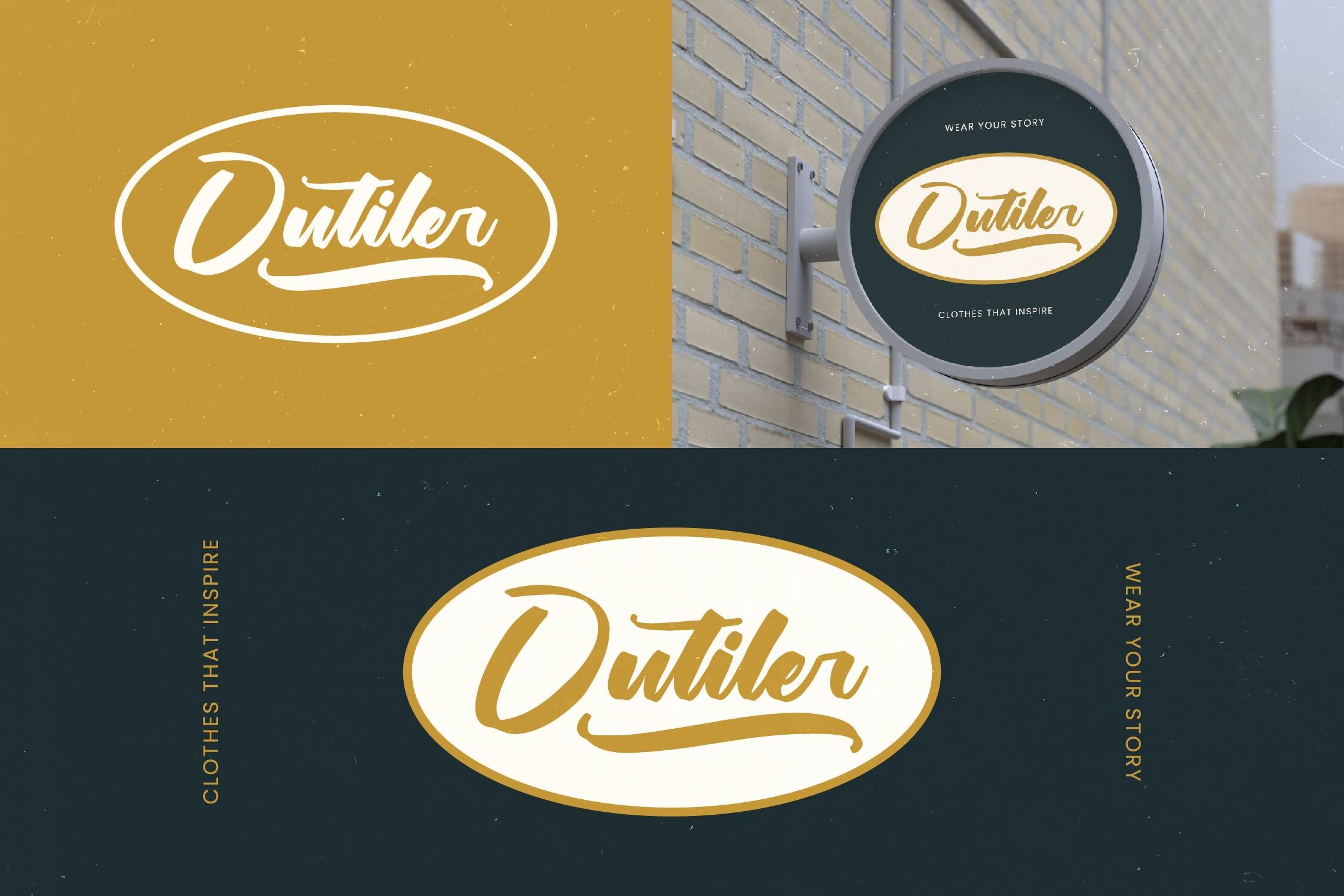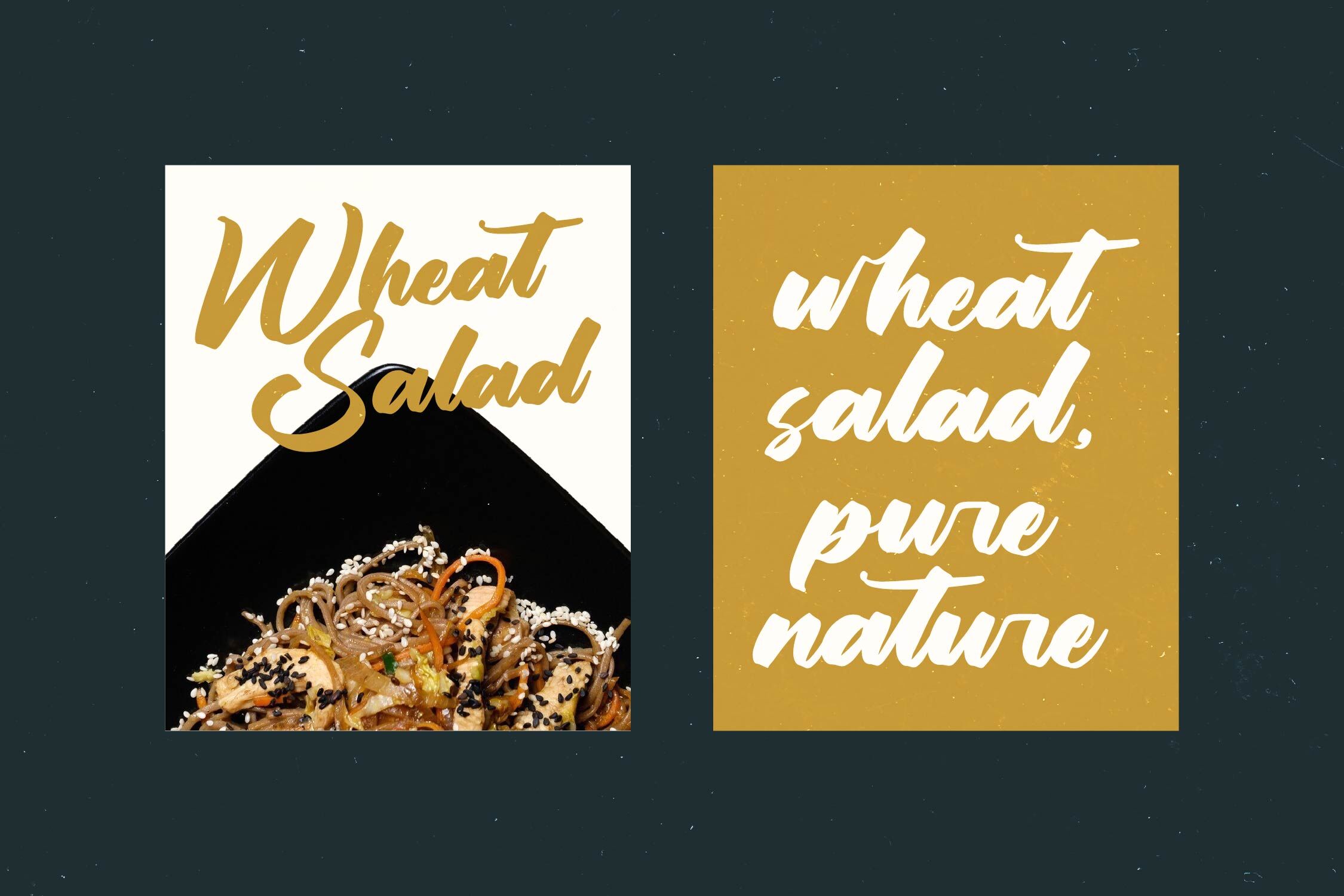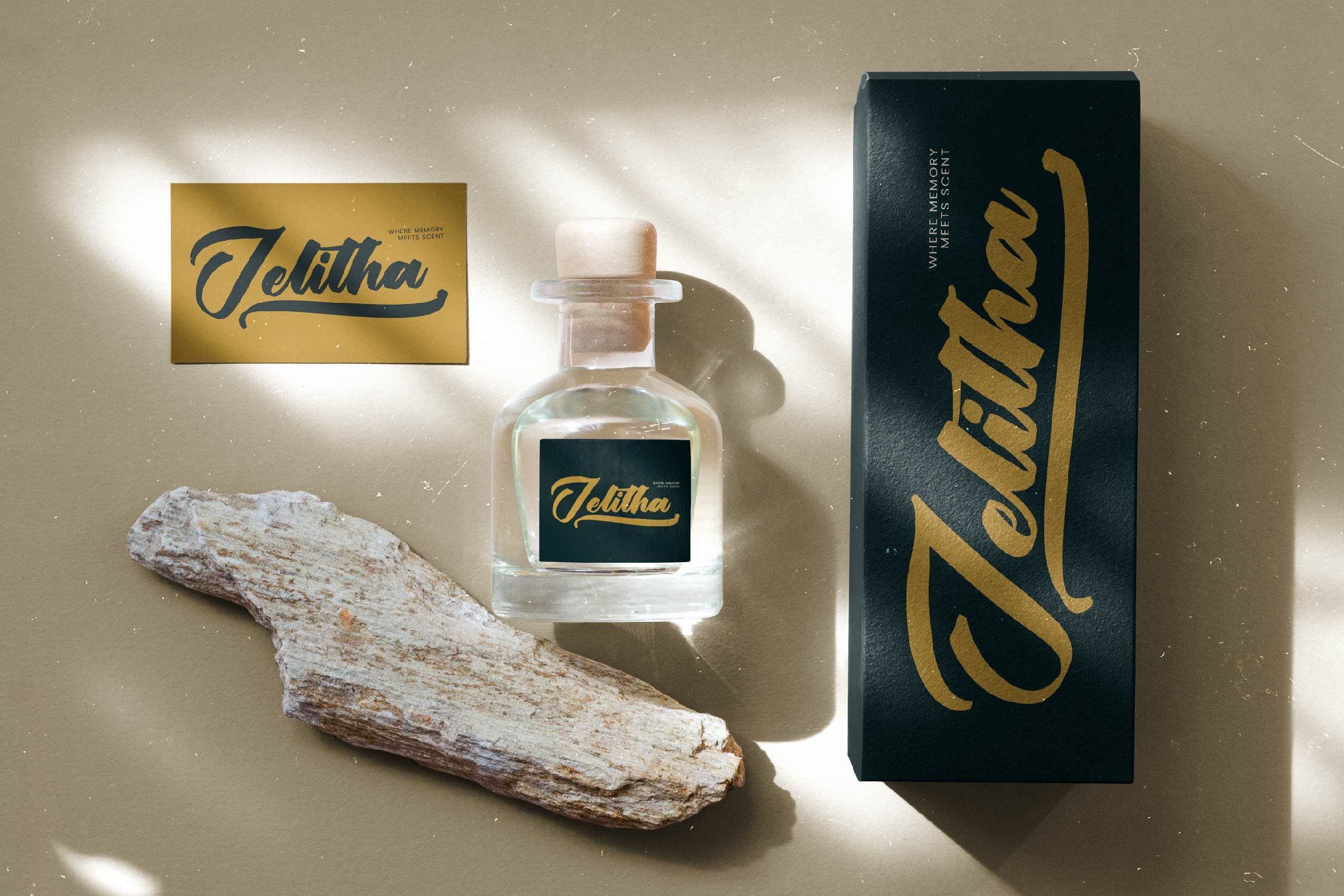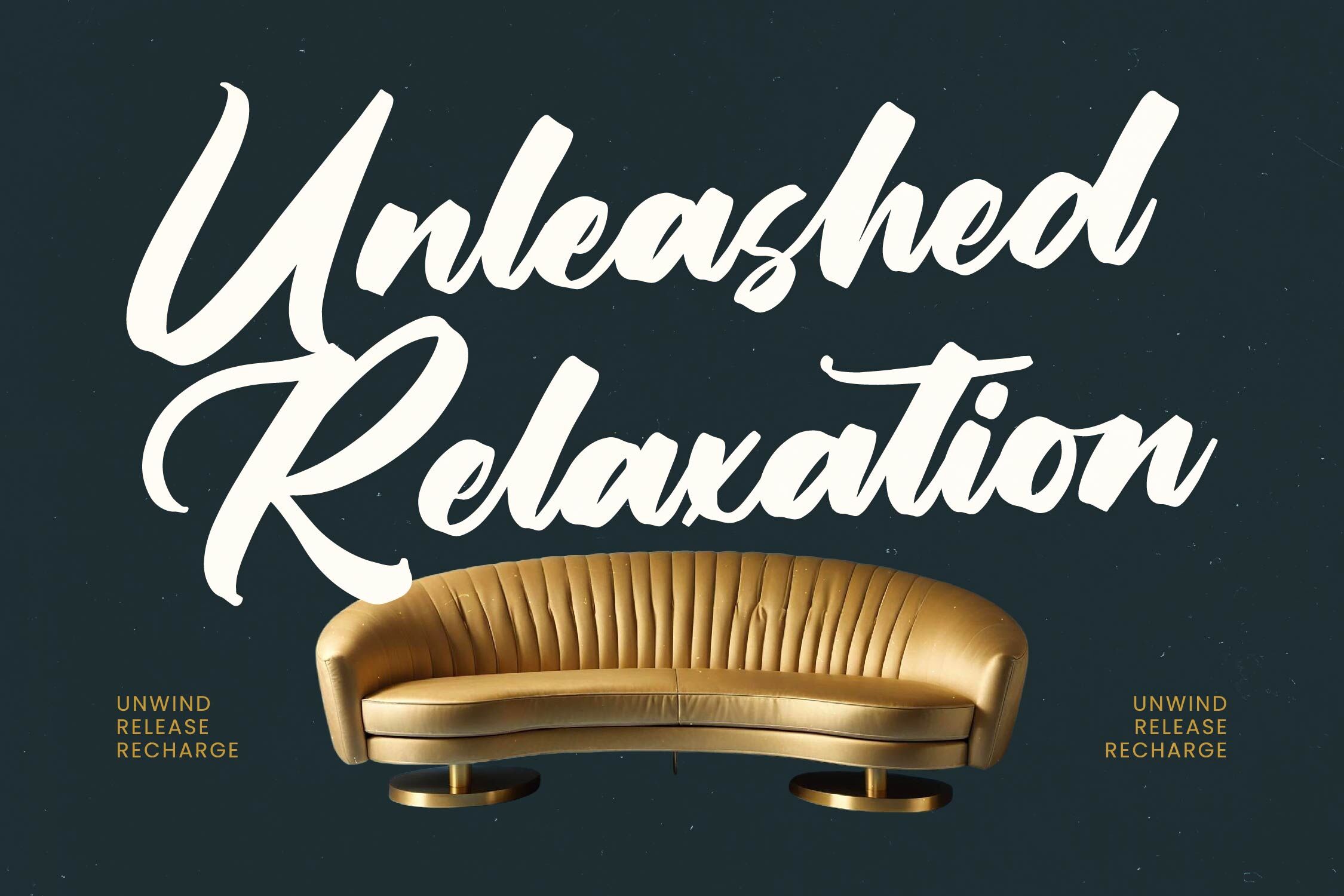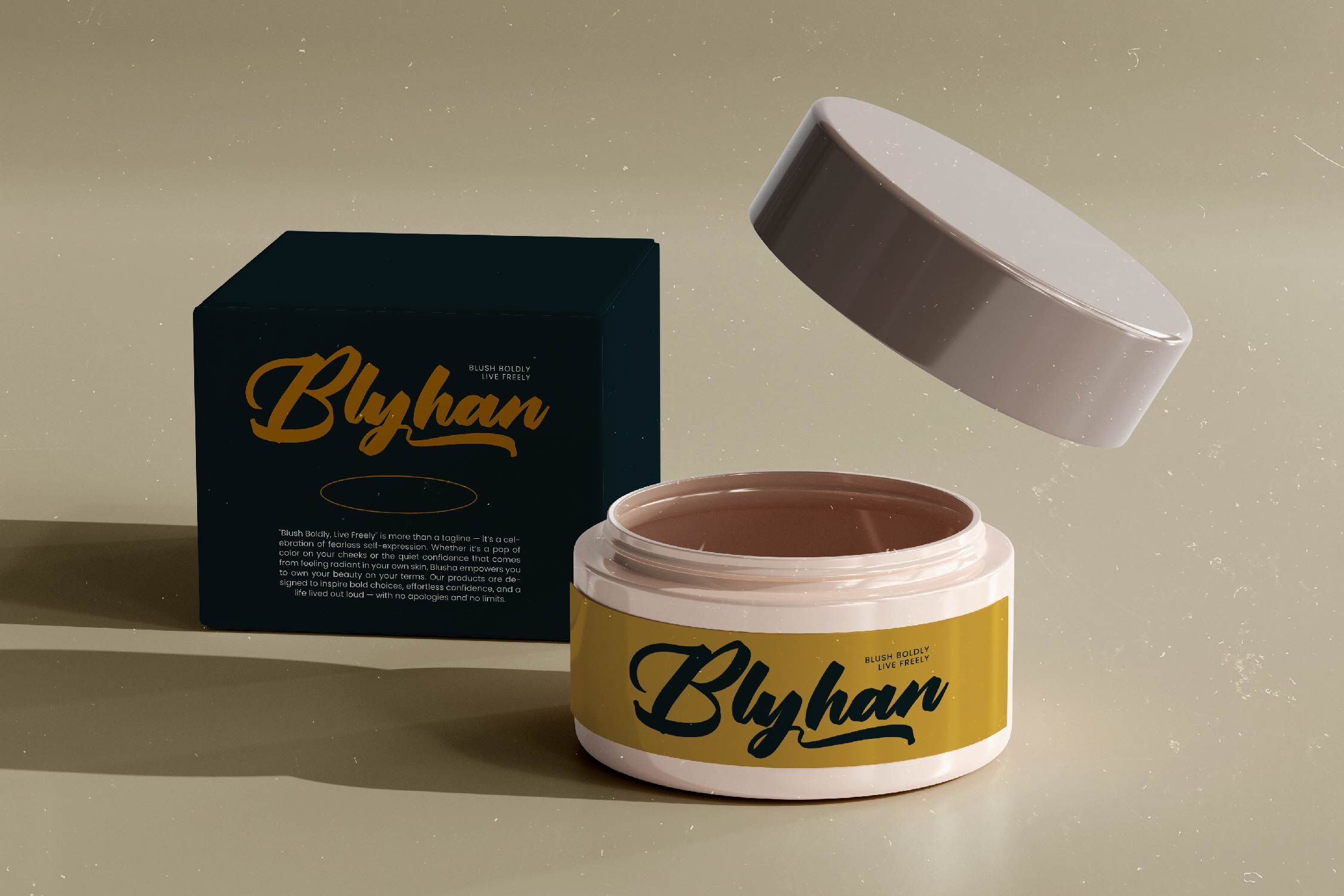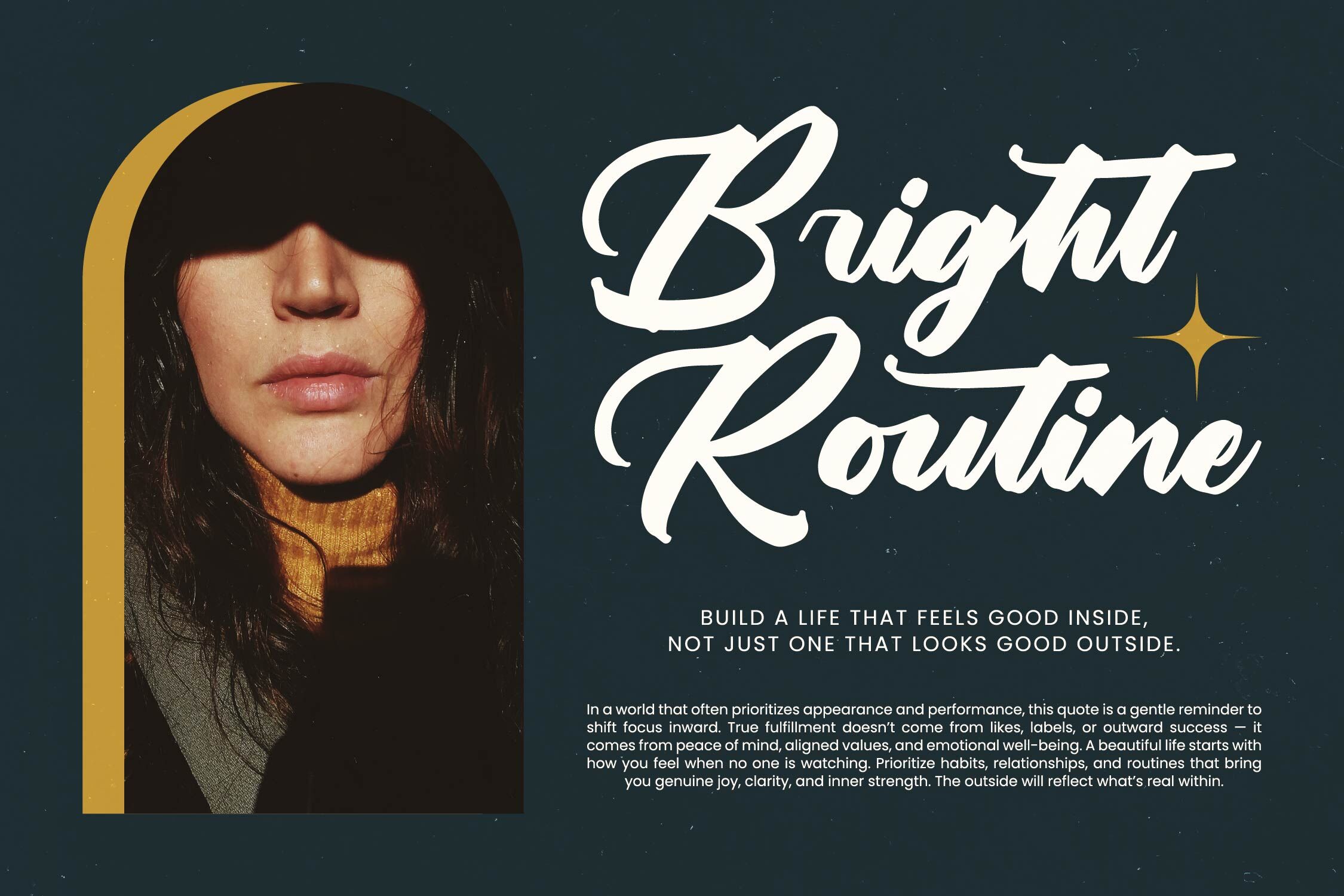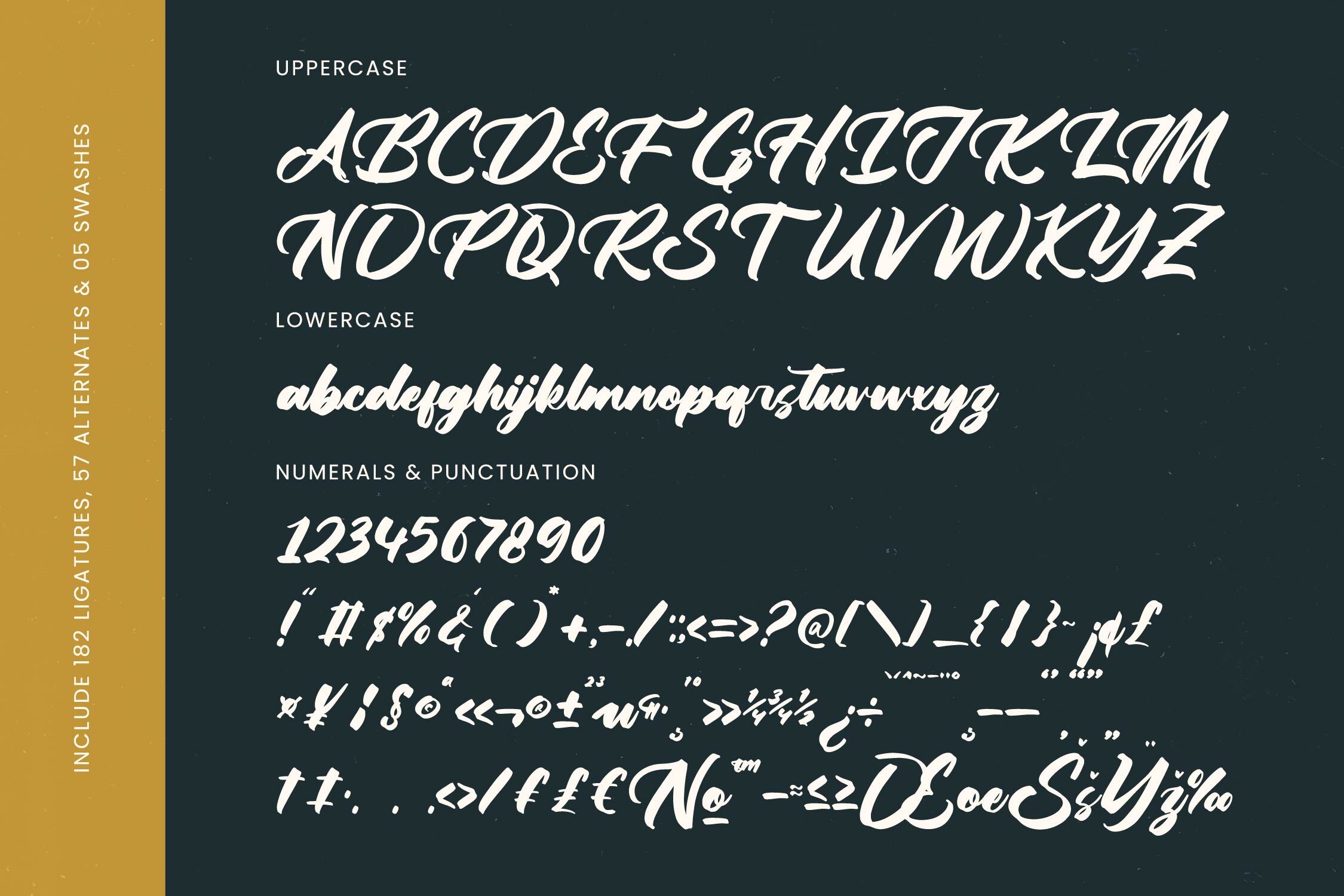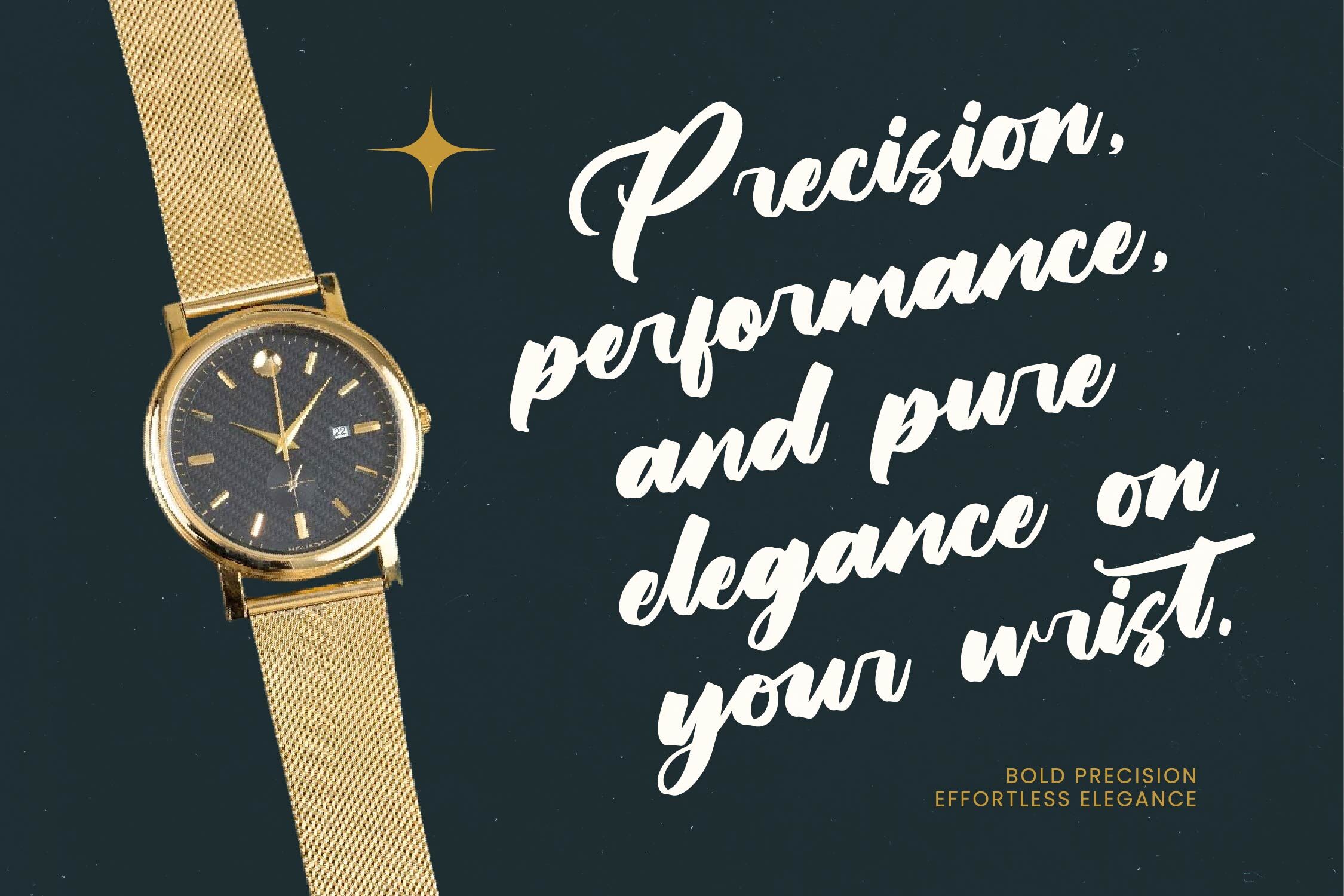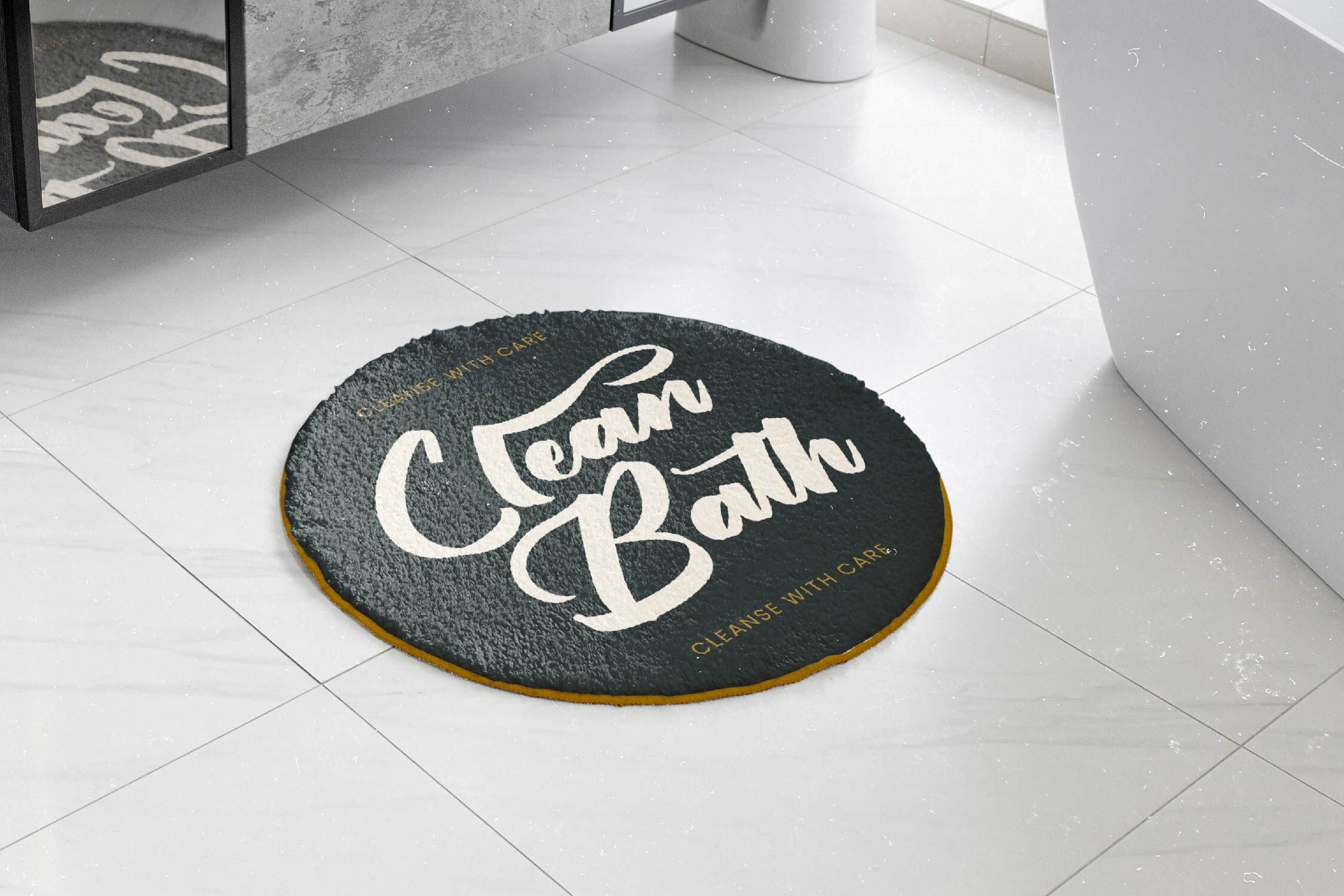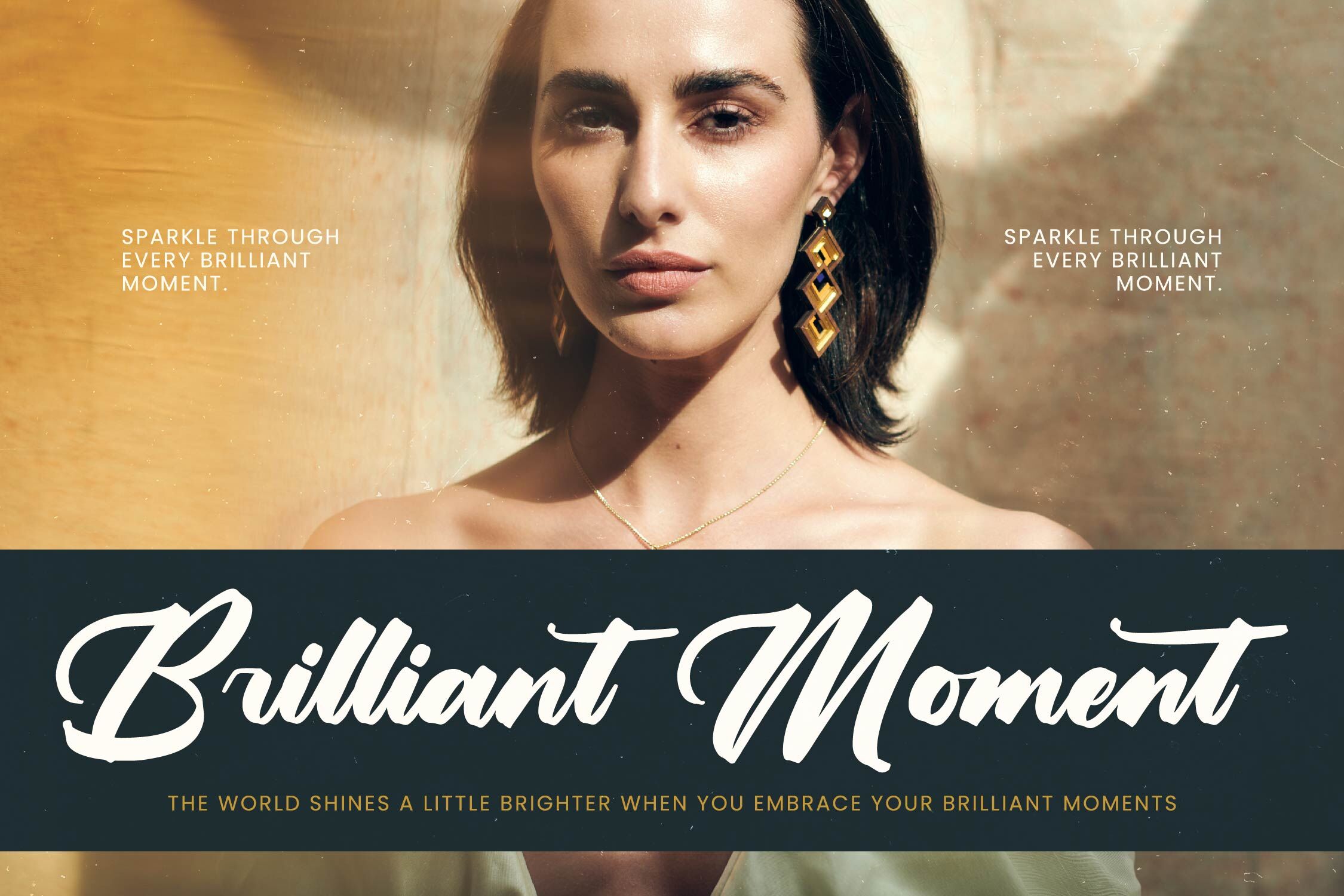
Yulinta Satin - Bold Calligraphy Font
Yulinta Satin - Bold Calligraphy Font , from Letterena, is a Luxury Script font, suitable for any projects such as: logos, branding projects, homeware designs, product packaging, mugs, quotes, posters, shopping bags, t-shirts, book covers, name card, invitation cards, greeting cards, label, photography, watermark, special events, and all your other luxury and beautiful projects that need a Luxury Script taste.